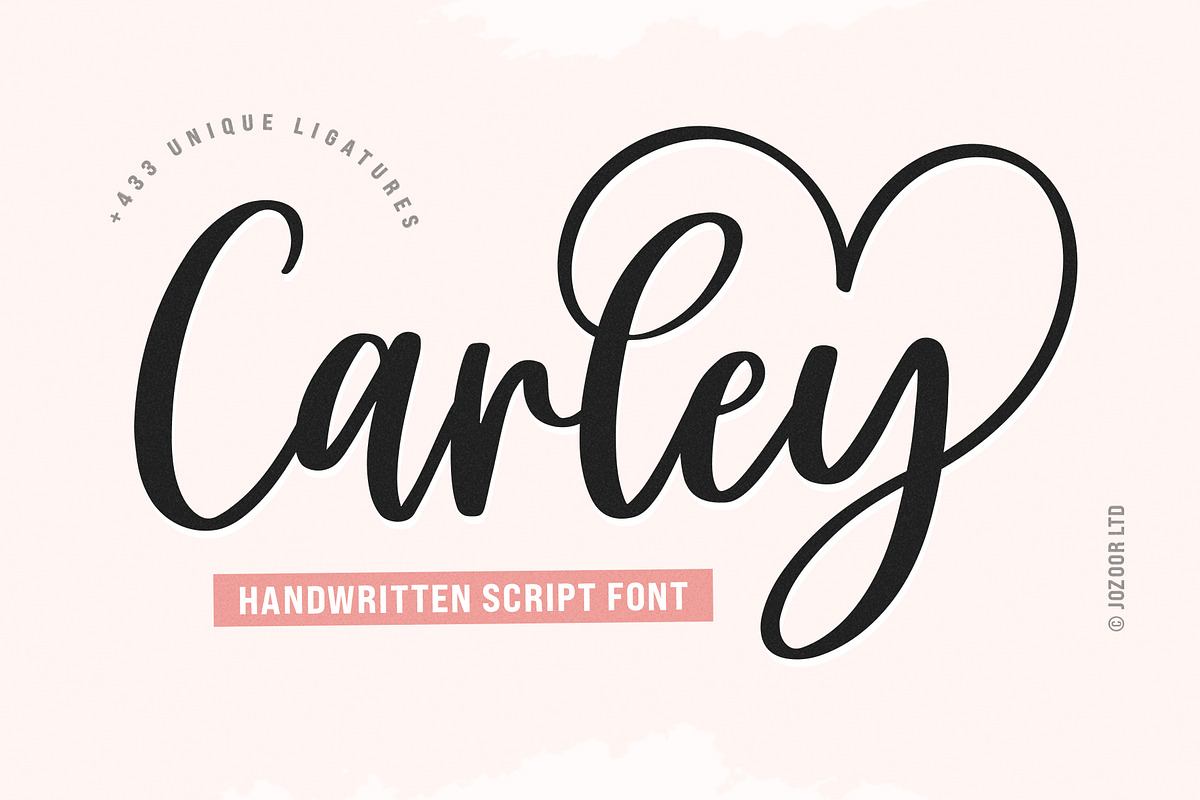
You must purchase this font for commercial use. However, you can download Carley - Lovely Heart Script Font Free Download for testing purposes. Carley is a charming and romantic script font, designed with flowing, heart-shaped strokes that add a touch of love and warmth to your designs. Perfect for wedding invitations, romantic logos, greeting cards, and personal branding, this font brings elegance and affection to any project.
With its graceful and delicate design, Carley captures the essence of love and beauty, making it ideal for projects that need a personal, heartfelt touch. Whether you're designing for a wedding, creating a romantic logo, or crafting an inviting greeting card, this font will add a special, loving vibe to your typography.